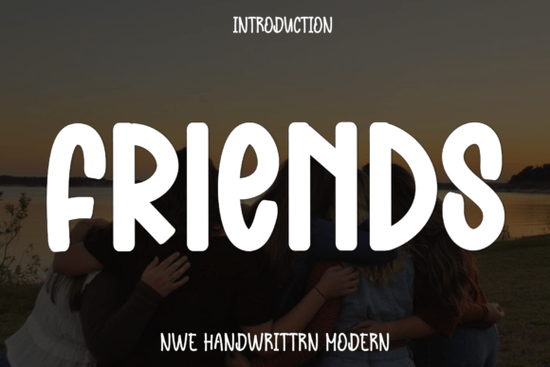
If you've been searching for a typeface that balances elegance with simplicity, the Friends Font might be exactly what your next project needs. This modern handwritten script features tall, thin strokes with a subtle slant that gives text a clean, airy feel. It's designed for creators who want their typography to look polished without feeling overdone whether you're building a brand identity, designing travel-themed content, or putting together a professional web layout.
What Makes the Friends Font Different From Other Script Fonts?
Plenty of handwritten fonts lean heavily into casual, messy aesthetics. That works for some projects, but it can feel out of place when you need something more refined. The Friends typeface takes a different approach. Its strokes are deliberately thin and tall, creating a look that's graceful without being fussy.
Think of it this way: if most script fonts feel like a coffee shop chalkboard, Friends Font feels like a handwritten note on premium stationery. The slight italic slant adds movement to the letters, but the overall design stays clean and legible.
What Projects Work Best With a Font Like This?
The product description highlights travel photography, outdoor branding, and web design and those are strong use cases. But based on how the font is structured, here are some more specific applications:
- Travel blog headers and photo overlays the airy, lightweight style pairs well with landscape and nature imagery
- Outdoor and adventure brand logos it communicates clarity and freshness without looking generic
- Wedding and event invitations the elegant thin strokes give formal pieces a modern edge
- Social media graphics especially for lifestyle, wellness, or boutique product accounts
- Print-on-demand products tote bags, mugs, and apparel designs where clean script text sells well
If you work in print-on-demand, pairing a font like this with a bold sans-serif for contrast can make your designs stand out in crowded marketplaces. You could also explore complementary handwritten options like the Baseball Handwriting Font if you want something with a sportier, more casual vibe for a different product line.
How Does It Compare to Other Handwritten Fonts on Creative Fabrica?
Creative Fabrica has a large library of script and handwritten fonts, so it's worth understanding where Friends Font fits. Here's a quick comparison with a few similar options:
- Ordinary Summer Font has a more relaxed, seasonal feel. Good for casual branding and summer-themed designs, but less versatile for professional use.
- Curlicue Font features more decorative flourishes and swirls. Beautiful for formal invitations but can be harder to read at smaller sizes.
- Longmile Font leans into a stretched, modern calligraphy look. Works well for logos and headlines but may feel too stylized for body-adjacent text.
Friends Font sits in a sweet spot between these. It's elegant enough for premium branding projects but readable enough for everyday use in digital and print layouts.
Is It Legible Enough for Small Text?
This is a fair question with any thin-stroke font. Because Friends Font uses clean, well-spaced letterforms without heavy ornamentation, it holds up reasonably well at smaller sizes especially on screen. That said, for very small print (like packaging disclaimers or fine print), you'd want to pair it with a more traditional body font.
For display sizes headers, logos, hero text on websites it shines. The thin strokes create a delicate, modern look that photographs well and renders cleanly on high-resolution screens.
Pairing Ideas for Better Design Layouts
Script fonts rarely work alone. To get the most out of Friends Font, try pairing it with:
- A clean geometric sans-serif like Montserrat or Raleway for contrast
- A light-weight serif like Playfair Display for an elegant editorial feel
- A bold condensed font if you need hierarchy and visual weight in posters or packaging
You can find more font pairing inspiration and explore options like different script styles to build a cohesive type system for your brand or project.
Quick Checklist Before You Use This Font
- ✅ Test it at your target size preview on both screen and print if possible
- ✅ Pair it with a contrasting font for body text or secondary headings
- ✅ Use generous spacing (tracking) to let the thin strokes breathe
- ✅ Avoid using it for long paragraphs it's best suited for headlines and display text